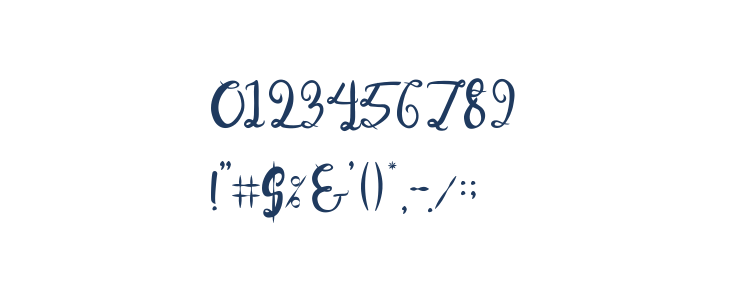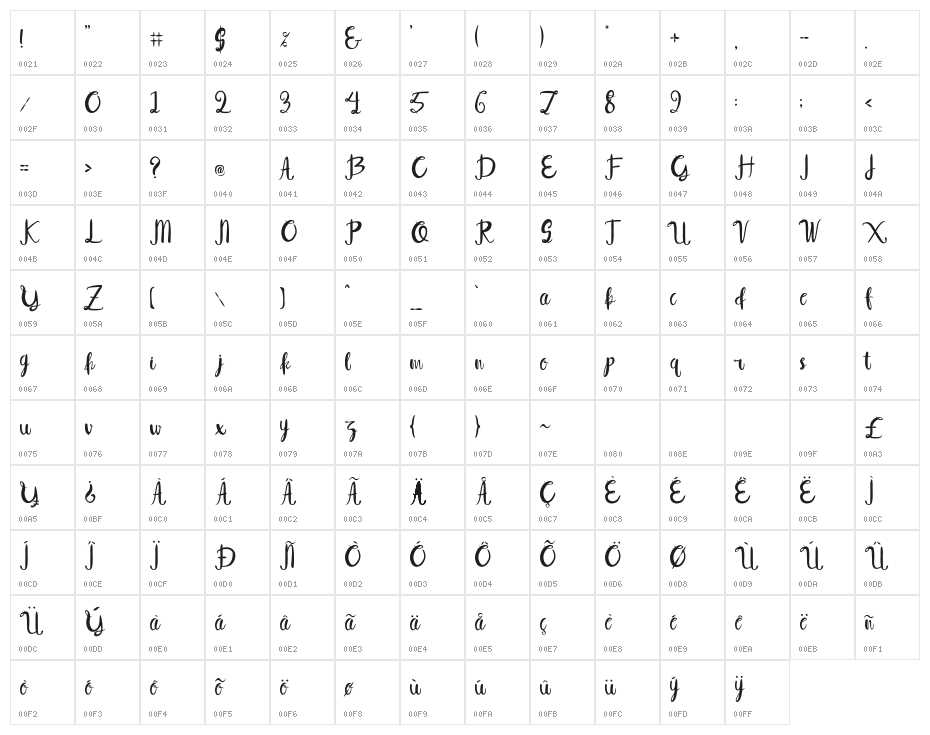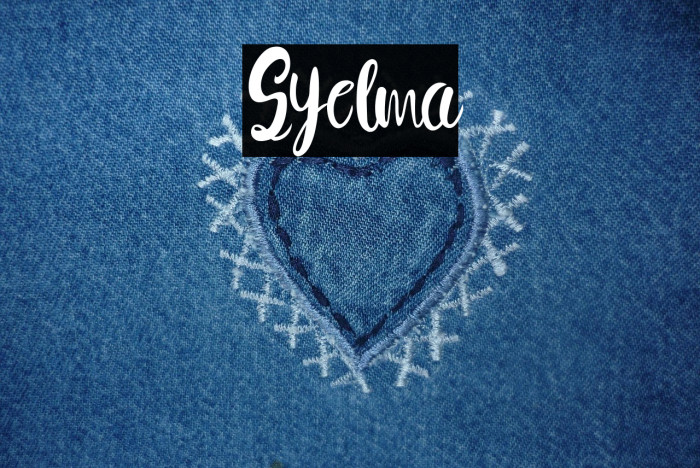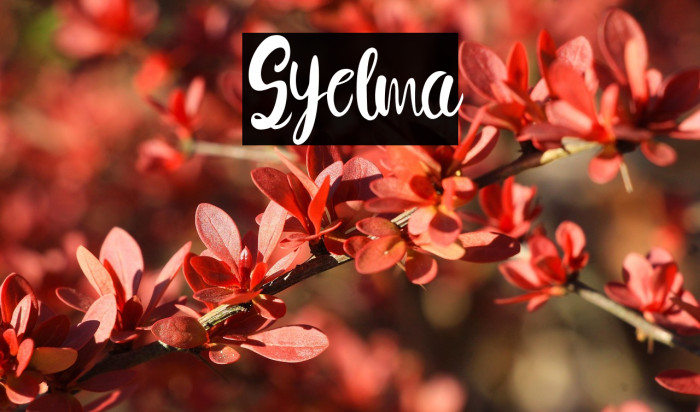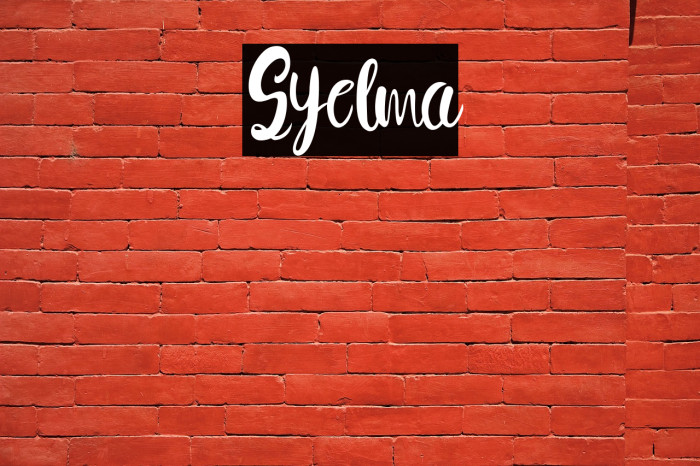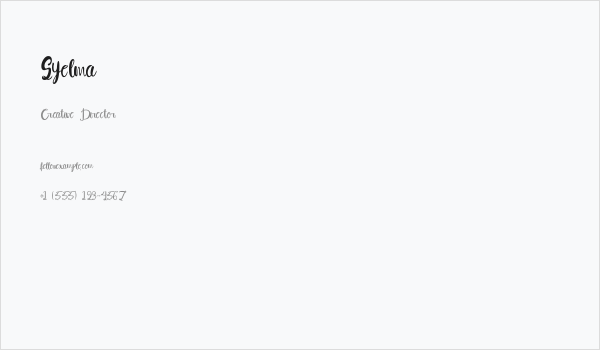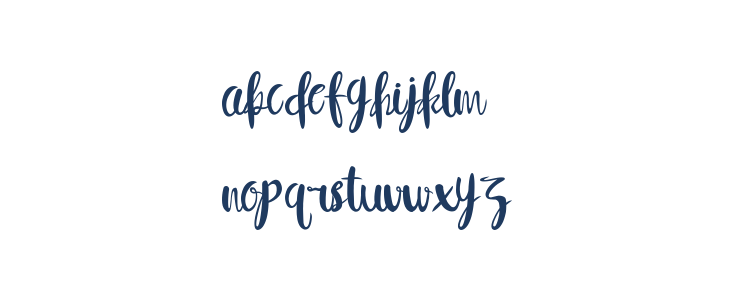
Syelma Font
Syelma Description
This font features a playful and whimsical script style, characterized by its flowing and interconnected letterforms. The uppercase letters exhibit a bold and dynamic presence, with exaggerated curves and loops that give a sense of movement and energy. The lowercase letters maintain a consistent flow, with a slightly more restrained design that complements the uppercase set. Numbers and special characters are crafted with the same lively spirit, ensuring a cohesive look throughout. The overall appearance is both elegant and approachable, making it suitable for a variety of creative applications.